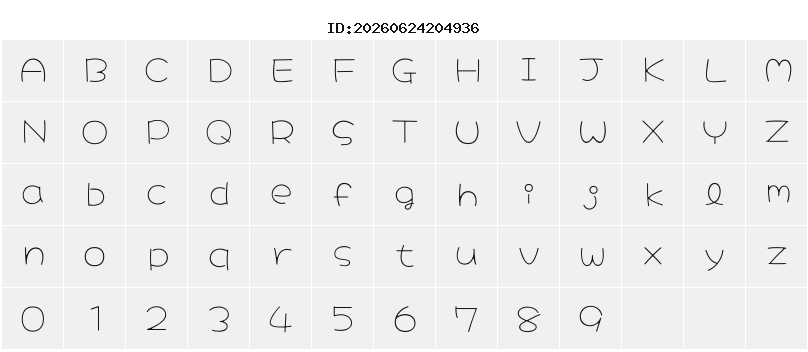
大波浪圓體 CJK JP-ExtraLight Preview
• Font Name: 大波浪圓體 CJK JP-ExtraLight
• Font Style: ExtraLight
• Font ID: 2.120;MAX!;PopGothicCjkJp-ExtraLight
• Full Font Name: 大波浪圓體 CJK JP-ExtraLight
• PostScript Name: PopGothicCjkJp-ExtraLight
• Designer: Max Yao
• Manufacturer: Max-Everyday
About 大波浪圓體 CJK JP-ExtraLight.ttf
大波浪圓體 CJK JP-ExtraLight.ttf is a modern, elegant sans-serif font designed for ultimate readability and visual harmony. Perfect for branding, headlines, web design, and print materials.